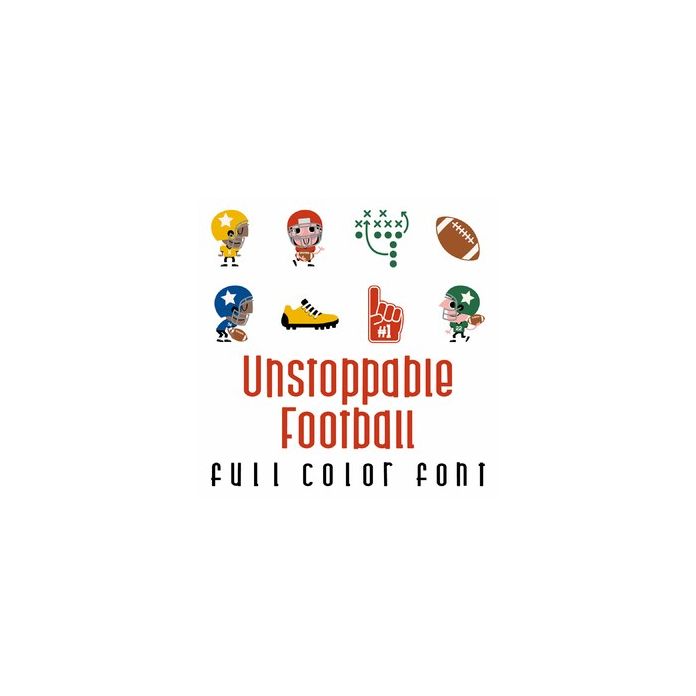
Unstoppable Football - Full Color Font
A full-color font stores svg data inside an Open Type font file. This font will look black if not used in a program like Silhouette Studio which is compatible. Images can be pulled apart with some vector programs like Illustrator and cut with your cutting machine. This adorable full color doodlebat font features 26 fun football players and football images. Perfect for cards, crafts, gifts, decor, scrap book pages, planner stickers and more!